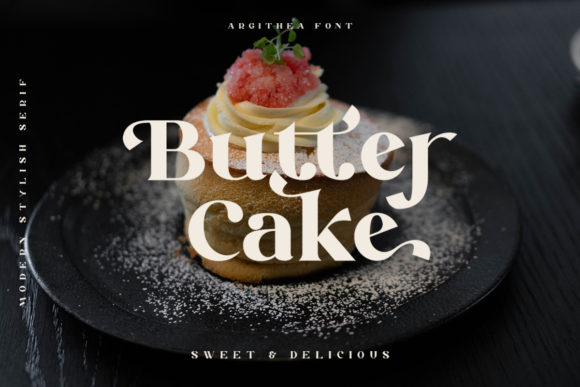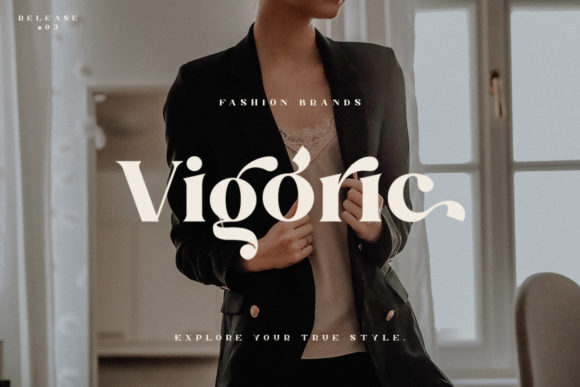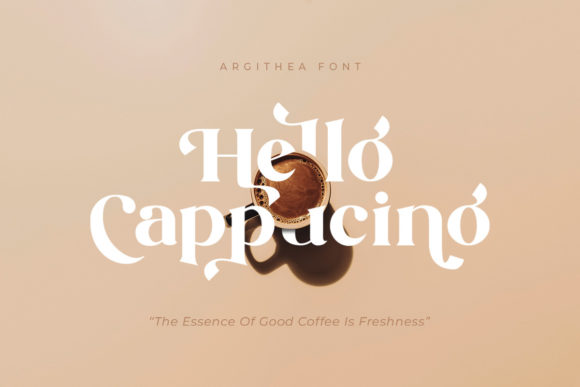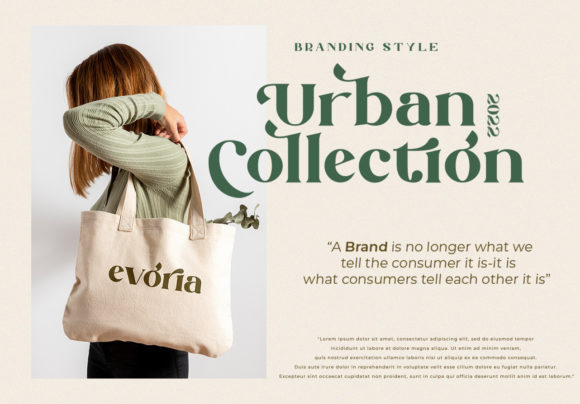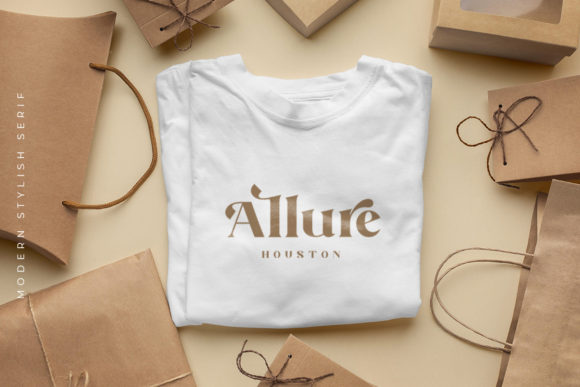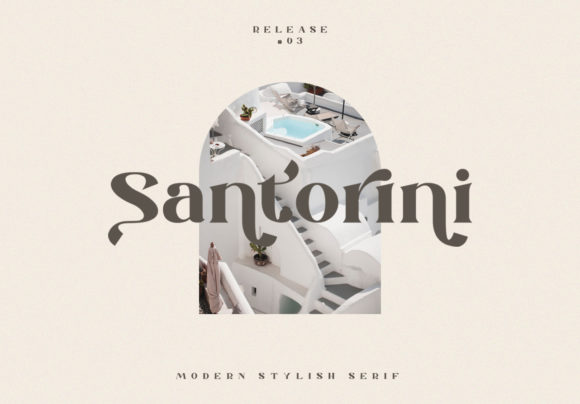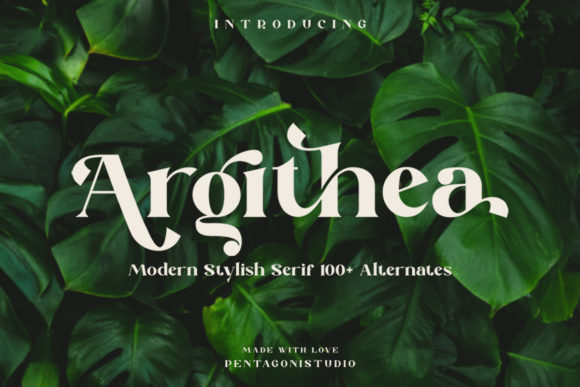
Introducing Argithea Font: Elevate Your Designs with Modern Elegance
In the world of typography, a font can make or break a design. For designers and crafters seeking a modern and stylish serif font, look no further than Argithea. This beautifully crafted font is not only aesthetically pleasing but also highly functional, making it an excellent addition to your typography arsenal.
What Makes Argithea Stand Out?
Argithea is a modern and stylish serif font that exudes elegance and sophistication. Its clean lines, precise curves, and balanced proportions make it perfect for a wide range of design applications, from luxury branding to elegant stationery, and from fashion magazines to high-end product packaging.
PUA Encoding: Unlock Endless Creative Possibilities
One of the standout features of Argithea is its PUA (Private Use Area) encoding. This means that the font includes a vast array of glyphs and swashes that can be easily accessed and used to add a touch of uniqueness to your designs. With PUA encoding, you can effortlessly insert ligatures, stylistic alternates, and swashes to create visually stunning text that sets your designs apart.
Key Features of Argithea Font
- Modern and Stylish Design: Argithea boasts a sleek and contemporary design that will elevate your projects with its refined aesthetic.
- PUA Encoded: Enjoy easy access to a wide range of glyphs and swashes, allowing you to experiment with different styles and create unique text.
- Serif Font: The classic serif design of Argithea lends a sense of tradition and reliability, making it perfect for projects that require a touch of sophistication.
- Highly Versatile: Use Argithea for a variety of design applications, including branding, advertising, packaging, and more.
Why Choose Argithea for Your Designs?
There are countless fonts available to designers and crafters, but Argithea offers a unique combination of style, functionality, and versatility. Here are just a few reasons why Argithea should be your go-to font:
- Elegance and Sophistication: Argithea’s modern serif design exudes elegance and sophistication, making it perfect for high-end projects.
- Easy to Use: With PUA encoding, accessing and using the font’s extensive range of glyphs and swashes is incredibly easy.
- Time-Saving: The versatility of Argithea means you can use it for a wide range of projects, reducing the need to search for and download multiple fonts.
- Stand Out from the Crowd: Argithea’s unique design and extensive features ensure that your designs will stand out in a crowded marketplace.
Tips for Using Argithea Effectively
To get the most out of Argithea, here are a few tips:
- Experiment with Swashes and Glyphs: Don’t be afraid to try out different swashes and glyphs to add a personal touch to your designs.
- Mix and Match: Combine Argithea with other fonts to create visually interesting and dynamic text.
- Pay Attention to Kerning: Make sure to adjust the kerning to ensure that your text looks polished and professional.
Argithea is a game-changing font for designers and crafters seeking a modern, stylish, and highly functional serif font. Its PUA encoding, elegant design, and versatility make it an excellent choice for a wide range of design applications. Whether you’re working on a luxury branding project, creating elegant stationery, or designing high-end product packaging, Argithea is sure to elevate your designs and help you stand out from the crowd.